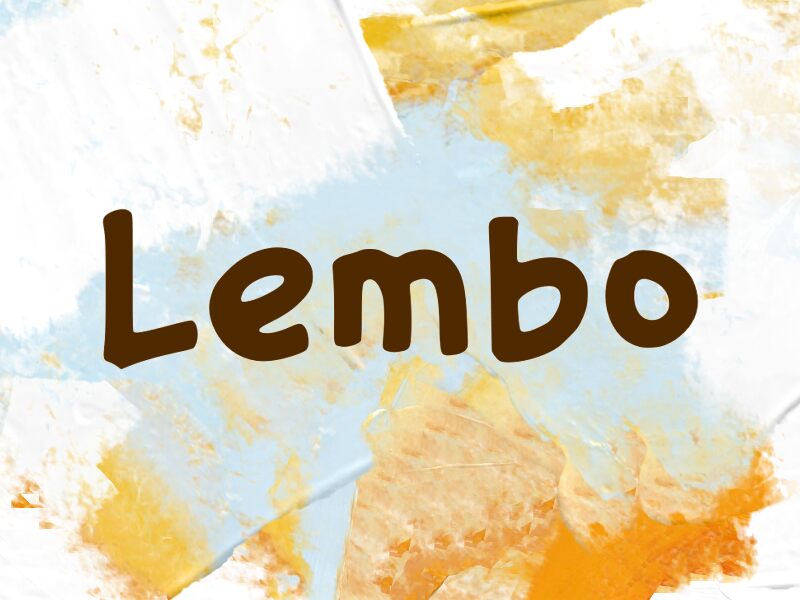
Lembo
Lembo font by wep is a free cartoon display typeface with a bold, inky bounce that feels like it was doodled straight from a marker pen. Each letter has a squishy, rounded silhouette and slightly uneven rhythm, giving headlines a friendly wobble instead of rigid precision. The thick strokes and generous shapes hold up at large sizes, where their playful imperfections really come alive.
Using Lembo, you can bring warmth and energy to kids’ book covers, classroom posters, birthday invitations, comic-style logos, packaging for snacks or toys, and social media graphics. This free font shines when you keep the text short and punchy, then pair it with a clean sans serif for smaller copy to balance its chunky, hand-drawn character.